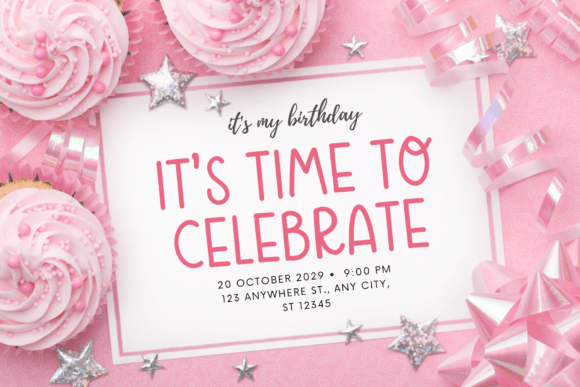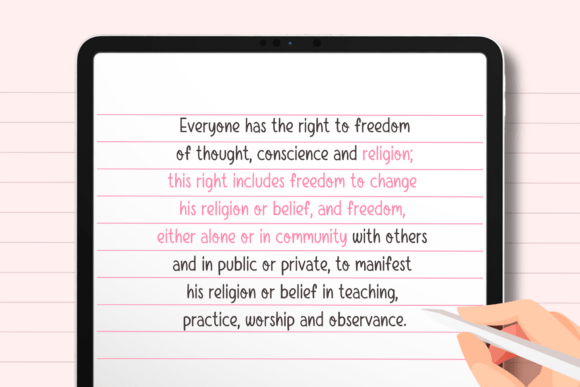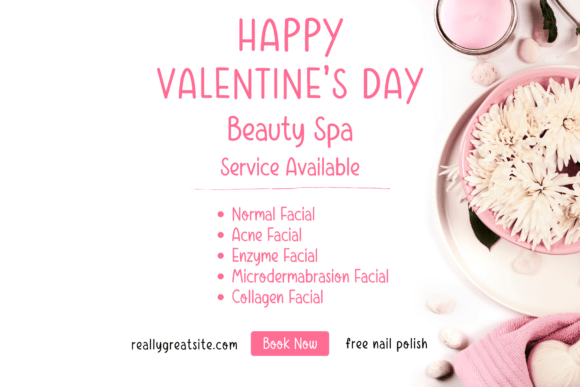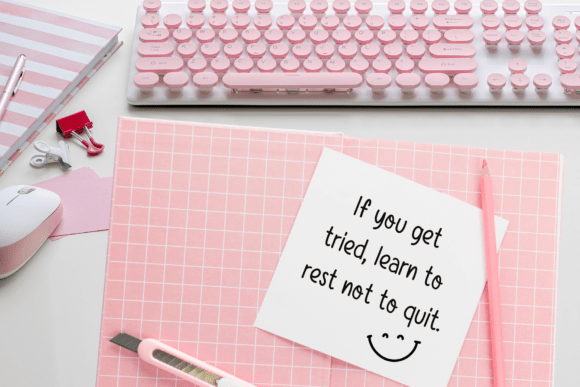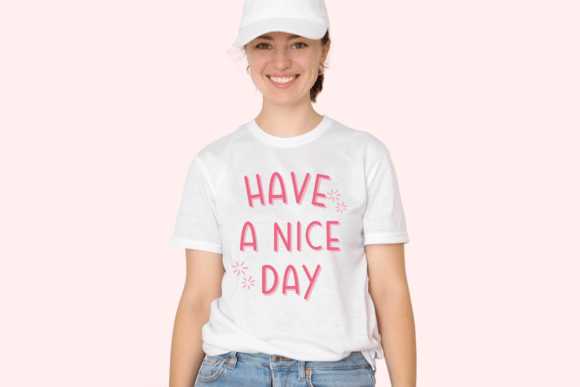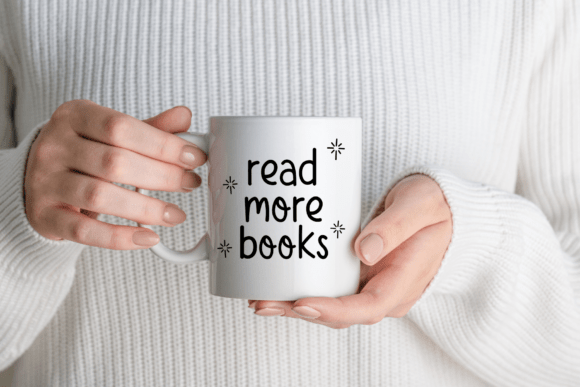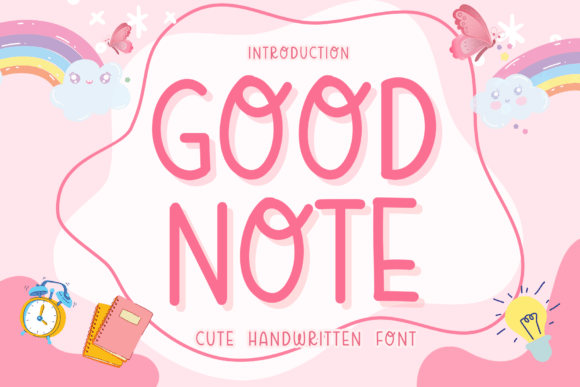
Introducing Good Note Font: The Sweet and Cute Handwritten Font for Your Design Needs
Are you looking for a font that can add a touch of elegance and whimsy to your designs? Look no further than Good Note Font, a sweet and cute handwritten font that’s perfect for a variety of design projects. With its gentle and romantic feel, Good Note Font is sure to make your designs stand out and leave a lasting impression.
What Makes Good Note Font So Special?
Good Note Font is a unique and charming handwritten font that’s designed to add a joyful and romantic touch to your designs. Its sweet and delicate feel makes it perfect for a wide range of design ideas, from branding and logos to wedding things, greeting cards, and fashion designs. Whether you’re looking to create a fancy and elegant design or something more casual and playful, Good Note Font is the perfect choice.
Good Note Font is a versatile font that’s perfect for designers and crafters alike. Its gentle and elegant feel makes it ideal for a variety of design projects, including:
- Branding: Use Good Note Font to create a unique and memorable brand identity that stands out from the crowd.
- Logos: Create a stunning logo that showcases your brand’s personality and style with Good Note Font.
- Wedding Things: Add a touch of romance and elegance to your wedding designs, including invitations, decorations, and more.
- Greeting Cards: Create beautiful and heartfelt greeting cards for special occasions, such as birthdays, anniversaries, and holidays.
- Fashion: Use Good Note Font to create stunning fashion designs, including look books, marketing promotions, and more.
Why Choose Good Note Font?
There are many reasons why Good Note Font is the perfect choice for your design needs. Here are just a few:
- Unique and Charming: Good Note Font is a one-of-a-kind font that’s sure to make your designs stand out.
- Versatile: Good Note Font can be used for a wide range of design projects, from elegant and fancy designs to casual and playful ones.
- Elegant and Whimsical: Good Note Font has a gentle and romantic feel that’s perfect for adding a touch of elegance and whimsy to your designs.
Tips and Tricks for Using Good Note Font
Here are some tips and tricks for getting the most out of Good Note Font:
- Experiment with Sizes: Try out different font sizes to see what works best for your design.
- Mix and Match: Combine Good Note Font with other fonts to create a unique and interesting design.
- Play with Colors: Experiment with different colors to find the perfect match for your design.
- Keep it Simple: Don’t be afraid to keep your design simple and elegant – Good Note Font can shine on its own.
Good Note Font is a sweet and cute handwritten font that’s perfect for designers and crafters looking to add a touch of elegance and whimsy to their designs. With its gentle and romantic feel, Good Note Font is sure to make your designs stand out and leave a lasting impression. Whether you’re creating a logo, brochure, or social media post, Good Note Font is the perfect choice. So why wait? Download Good Note Font today and start creating stunning designs that will leave a lasting impression!